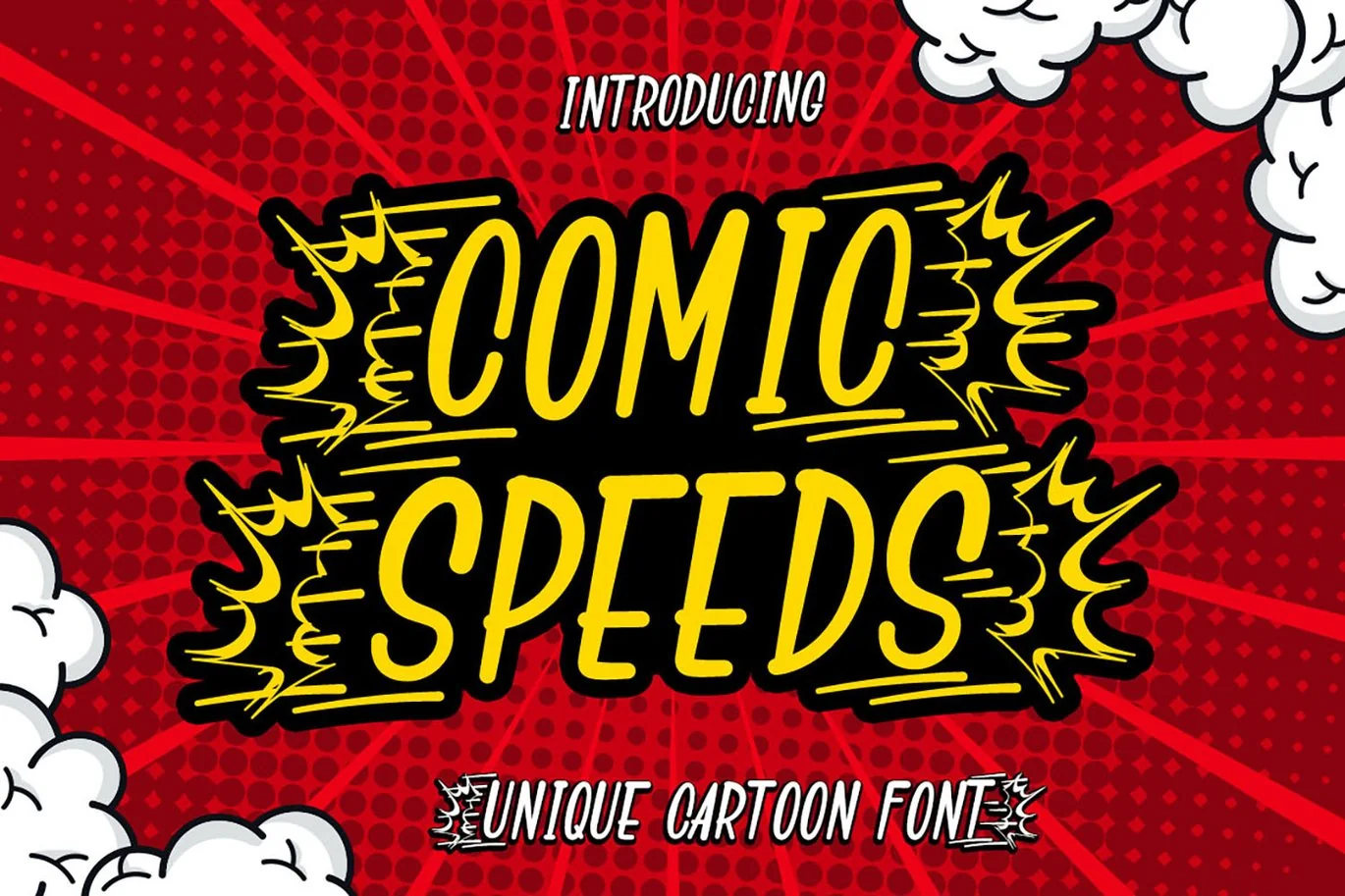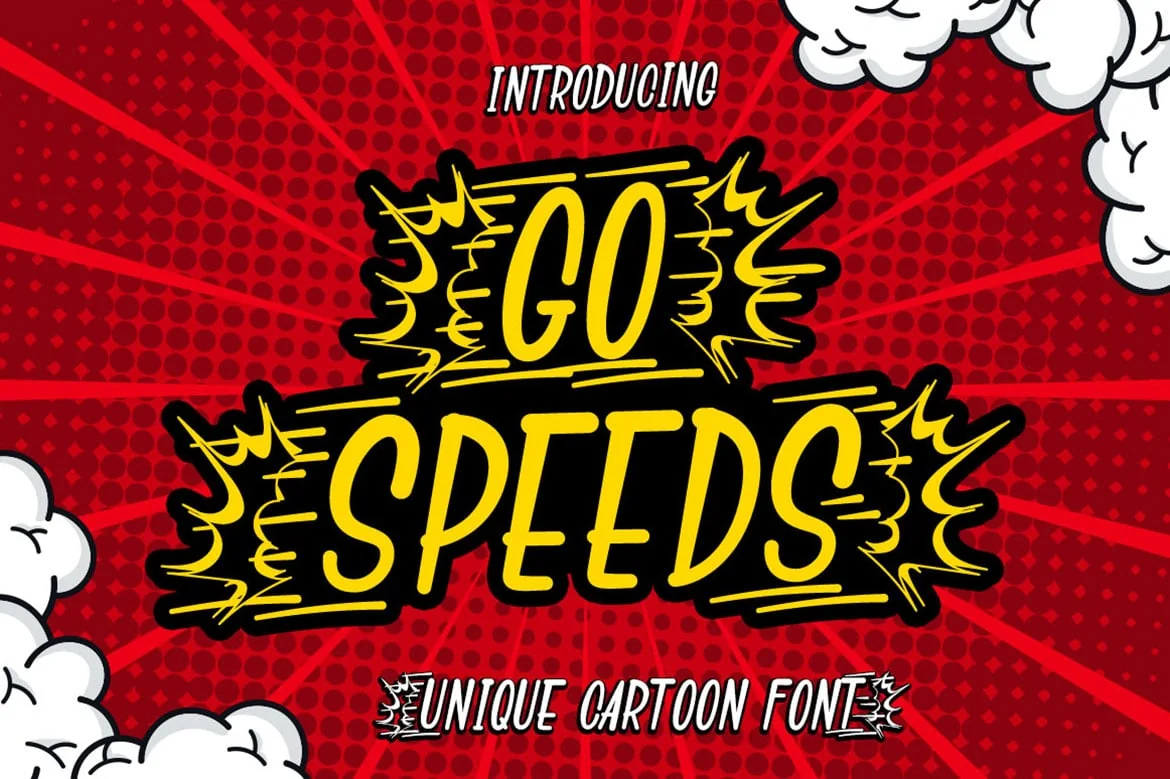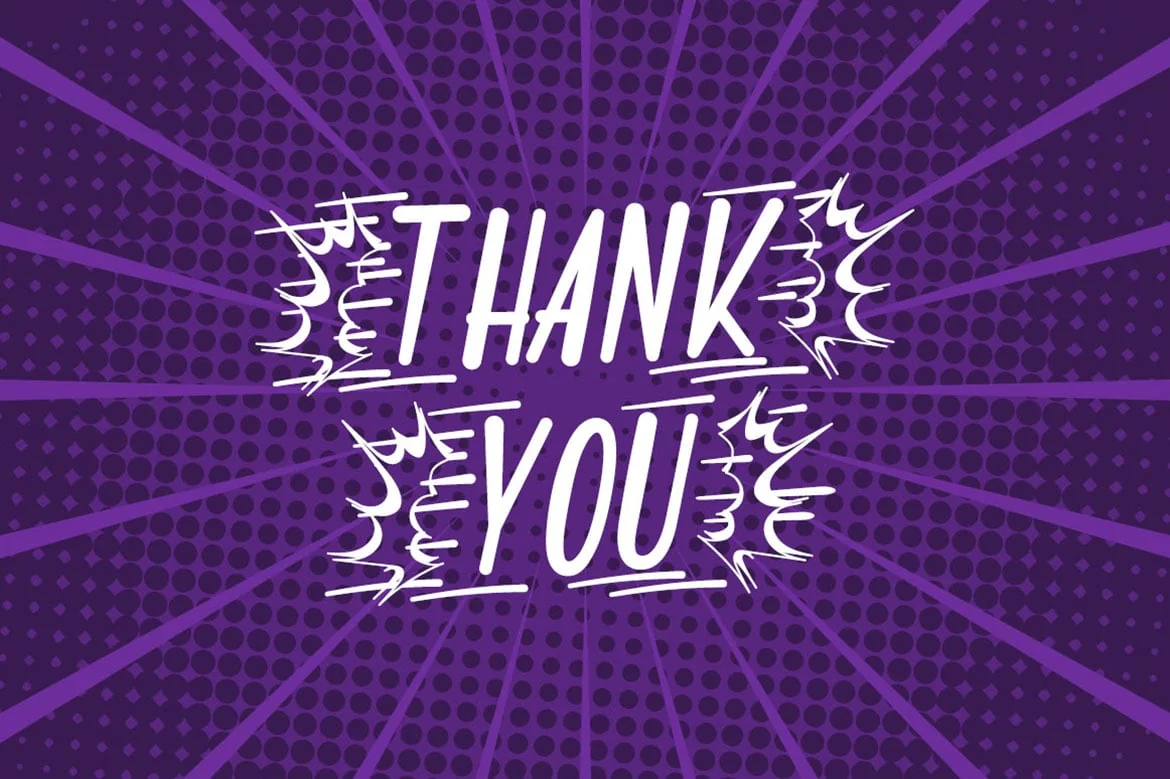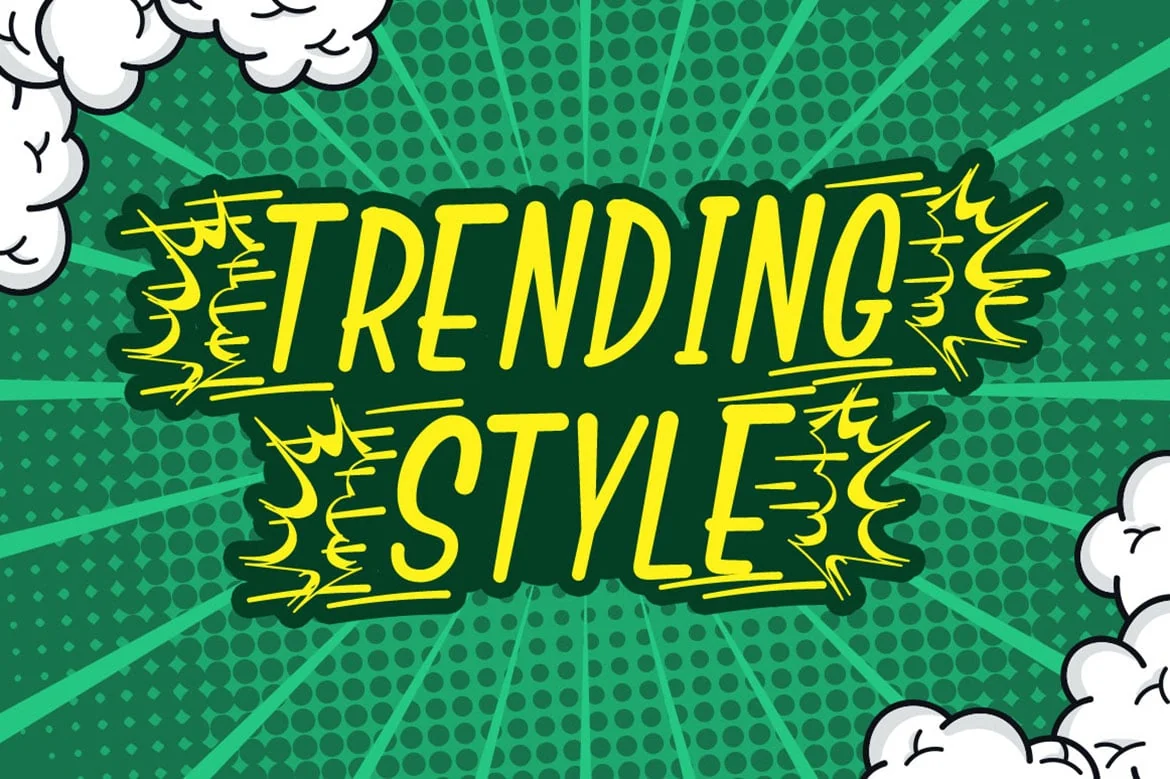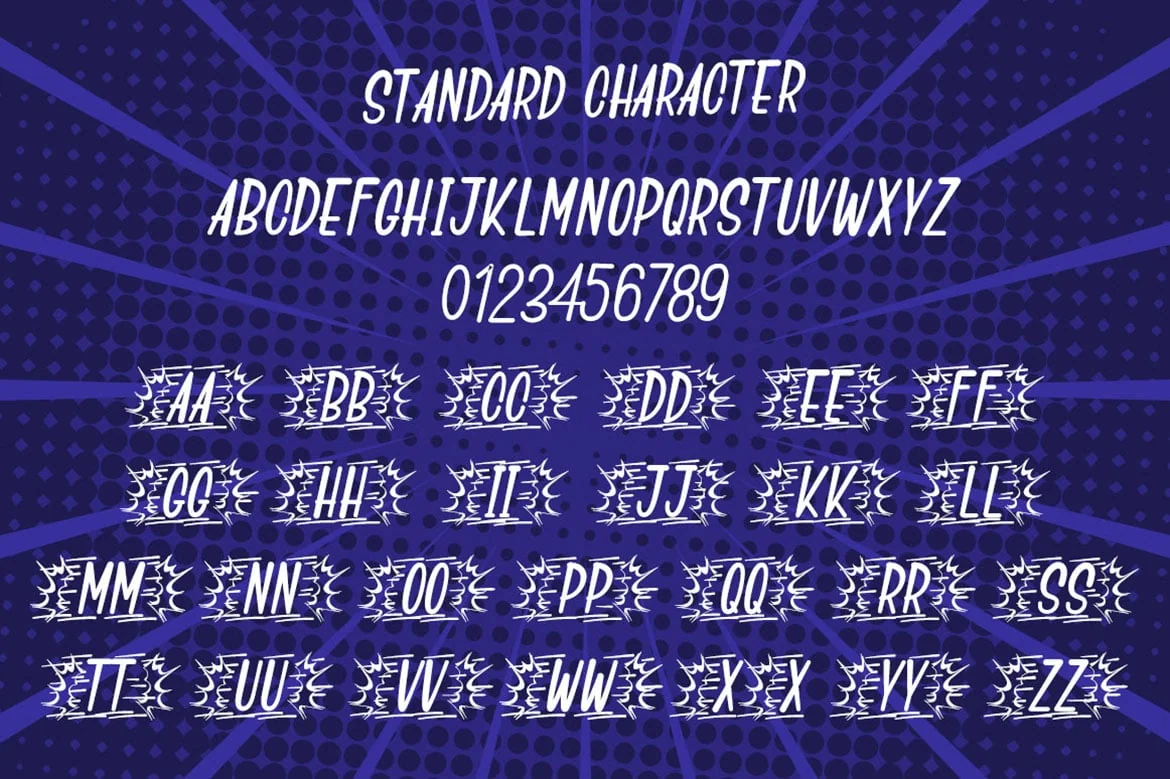
Comic Speeds – Cartoon Display Font
Comic Speeds is a fun display font. It has alternate characters with speed effects that make it perfect for any cartoon creative project.
Comic Speeds would be perfect for logos & branding, photography, watermark, social media posts, advertisements, invitation, product designs, labels, stationery, product packaging, special events, or anything.